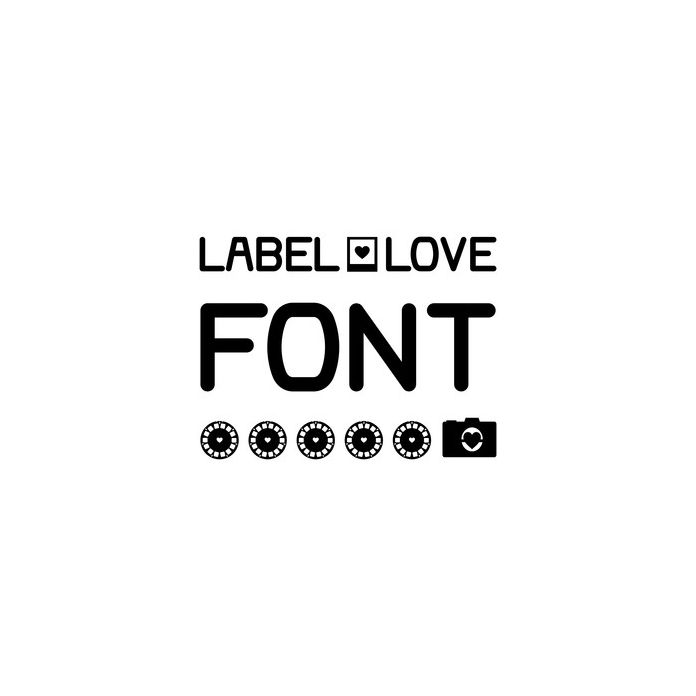
This trendy font mimics the style of a label maker. It also includes a instant photo frame, heart, camera, and view master icons. To access the icons, use the following keys: {}|^